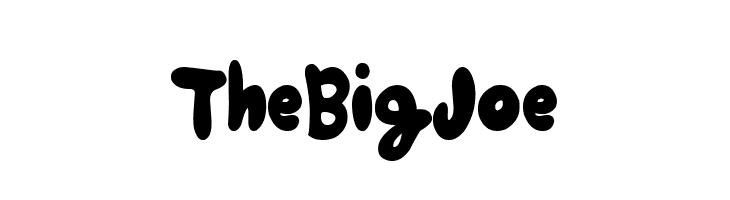
A bold, italic font with a ghostly, textured appearance, perfect for spooky themes.
A rugged, distressed font with a hand-drawn, vintage look.
A flowing, cursive font with elegant loops and artistic flair.
A bold, distressed font with a textured, vintage appearance.
A bold, playful font with rounded, bubble-like characters.
A bold, rounded font with a slightly condensed and friendly appearance.
A playful, bold font with rounded, thick strokes and a friendly appearance.
A playful, bold font with rounded edges and a friendly appearance.
A playful, bold font with rounded, thick strokes and a whimsical style.
A playful, bold font with rounded, thick strokes and a comic book style.
A bold, playful font with rounded, thick strokes and a hand-drawn feel.
A bold, playful handwritten font with rounded edges and a casual style.
A bold, playful font with rounded, bubbly characters perfect for fun and whimsical designs.
A playful, balloon-like font with rounded, bold characters.
A playful, balloon-like font with bold, rounded characters.
A playful, bold font with rounded, thick strokes and a friendly appearance.
A playful, bold font with rounded, bubbly characters perfect for fun and whimsical designs.
A playful, bold font with rounded, cartoonish strokes and a whimsical style.
A playful, bold font with rounded, bubbly characters perfect for fun designs.
A bold, angular font with a modern and edgy style.
A playful, bold typeface with rounded, bubbly characters and a whimsical style.
A decorative font resembling lipstick marks, perfect for creative projects.
A stylish cursive font with elegant loops and flourishes.
A playful handwritten font with rounded, irregular letterforms.
A playful, pumpkin-themed decorative font perfect for fall and Halloween designs.
A playful font with characters inside pumpkin silhouettes, perfect for autumn themes.
A bold, dripping font with a spooky, oozing effect.
A bold, playful handwritten font with a casual and friendly style.
A playful, casual handwritten font with smooth, rounded edges.
A playful and elegant script font with decorative loops and swirls.
A whimsical, playful font with flowing curves and a hand-drawn appearance.
A playful, bold, handwritten-style font with rounded characters.
A jagged, thorn-like font perfect for Halloween themes.
A playful, casual handwritten font with smooth, flowing lines.